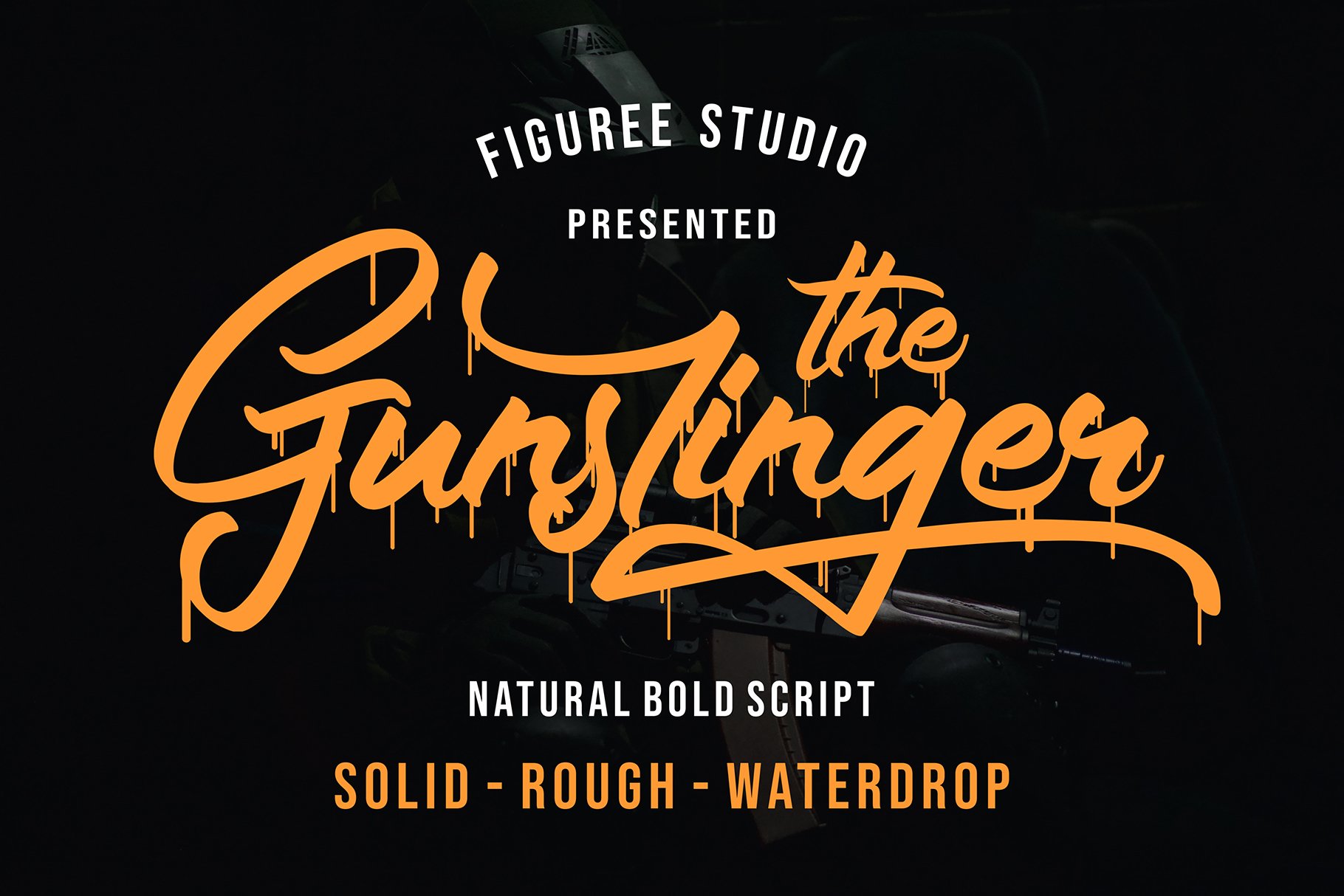
Browse by alphabetical listing, by style, by author or by popularity. Used in script typefaces which are designed to have some or all of their glyphs join. Sil ofl (free for commercial use) 3 font files download. Download and install free script fonts of the best quality from free fonts and use on your own personal and business related design purposes. Consist of uppercase, lowercase, numerals, punctuation & multingual characters, also includes some opentype features like ligatures, stylistic alternate characters, & swashes.
Please review any files included with your download, which will usually include information on the usage and. This is a beautiful boldscript font which personal touch of natural movement. Similar fonts for luxurious script from myfonts.com. Archive of freely downloadable fonts. Download and install free script fonts of the best quality from free fonts and use on your own personal and business related design purposes. Used in script typefaces which are designed to have some or all of their glyphs join. In caflisch script, o is replaced by o.alt2 when followed by an ascending letterform. Browse by alphabetical listing, by style, by author or by popularity.
Free beyonce script font is a beauty and natural handwritten font.
Give your christmas card a sense of luxury with this gorgeous script font from letterhend studio. Free fonts, download fonts, truetype, opentype, popular fonts, hot fonts, new fonts, windows fonts, mac fonts,free,download,fonts,free fonts,download fonts,truetype,opentype,postscript introducing sprightly script font. The sathien is a luxurious calligraphy with thin lines. Latin script (free fonts) latin script (handwritten fonts) turkish fonts at fontlibrary. It has cursive forms, with highly slanted and condensed char. Download the waving at christmas font from dafont here. Youtube sans font free download. On fontshub.pro, you can download fonts for free and use them on your site to design headlines, quotes, paragraphs, lists, or other text elements.
Stylish hand lettering bold scripts, brush fonts and script fonts are available for free download. Give your christmas card a sense of luxury with this gorgeous script font from letterhend studio. Luxurious — the perfect description for this stunning formal script. It is design and shared by kammaqsum. November 27, 2017 by dafont leave a comment. 1 style 4.3 169 downloads. In caflisch script, o is replaced by o.alt2 when followed by an ascending letterform. Dafont free is a source of free high quality fonts from various categories that include sans serif, serif, script, handwritten, calligraphy, display, fancy and more. Sil ofl (free for commercial use) 3 font files download. Consist of uppercase, lowercase, numerals, punctuation & multingual characters, also includes some opentype features like ligatures, stylistic alternate characters, & swashes. Archive of freely downloadable fonts. 1 style, by suandana ipandemade. The sathien is a luxurious calligraphy with thin lines.